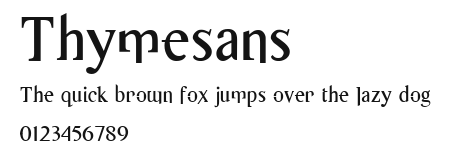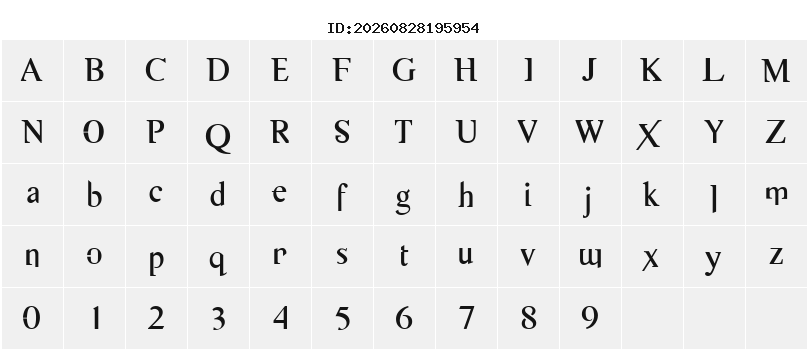
Thymesans Preview
• Font Name: Thymesans
• Full Font Name: Thymesans96
• PostScript Name: Thymesans96
About Thymesans.ttf
Thymesans.ttf is a modern, elegant sans-serif font designed for ultimate readability and visual harmony. Perfect for branding, headlines, web design, and print materials.